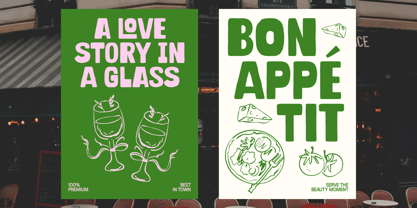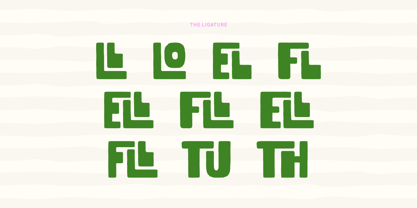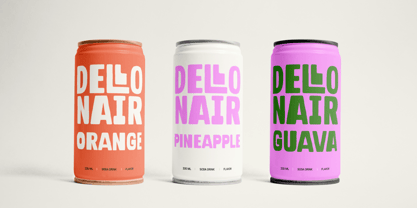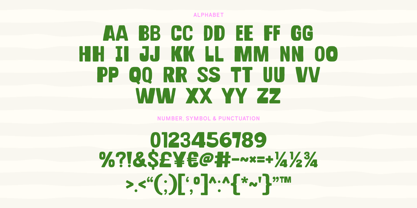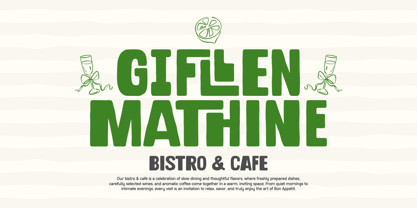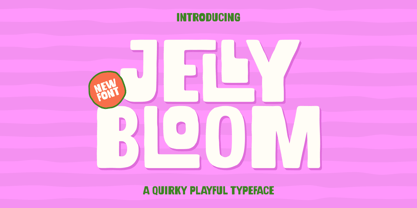
Jelly Bloom
by Super Dust
The Jelly Bloom Font Family was designed by Tri Iriyanto Wibowo and published by Super Dust. Jelly Bloom contains 1 styles. More about this family
Jelly Bloom is a playful, quirky display font bursting with charm, creativity, and joyful personality. Designed with bold, expressive letterforms and a fun, handcrafted feel, Jelly Bloom brings a sense of energy and imagination to every design. Its unique shapes and cheerful character create a friendly visual impact that instantly captures attention while maintaining excellent readability.
Inspired by the softness of jelly and the vibrant beauty of blooming flowers, the name Jelly Bloom reflects a font that feels sweet, lively, and full of positivity. Each letter is crafted to express a carefree spirit, making it perfect for projects that aim to feel approachable, fun, and memorable. The font’s quirky style adds a touch of uniqueness without overwhelming the overall design, allowing it to stand out in a playful yet balanced way.
Jelly Bloom is ideal for children's products, playful branding, packaging, greeting cards, social media graphics, posters, invitations, merchandise, and creative marketing materials. Whether you're designing for a fun event, a colorful brand, or an eye-catching headline, Jelly Bloom delivers warmth, personality, and a delightful visual experience that makes every project feel more vibrant and engaging.